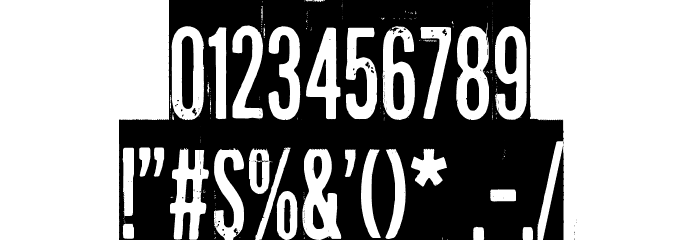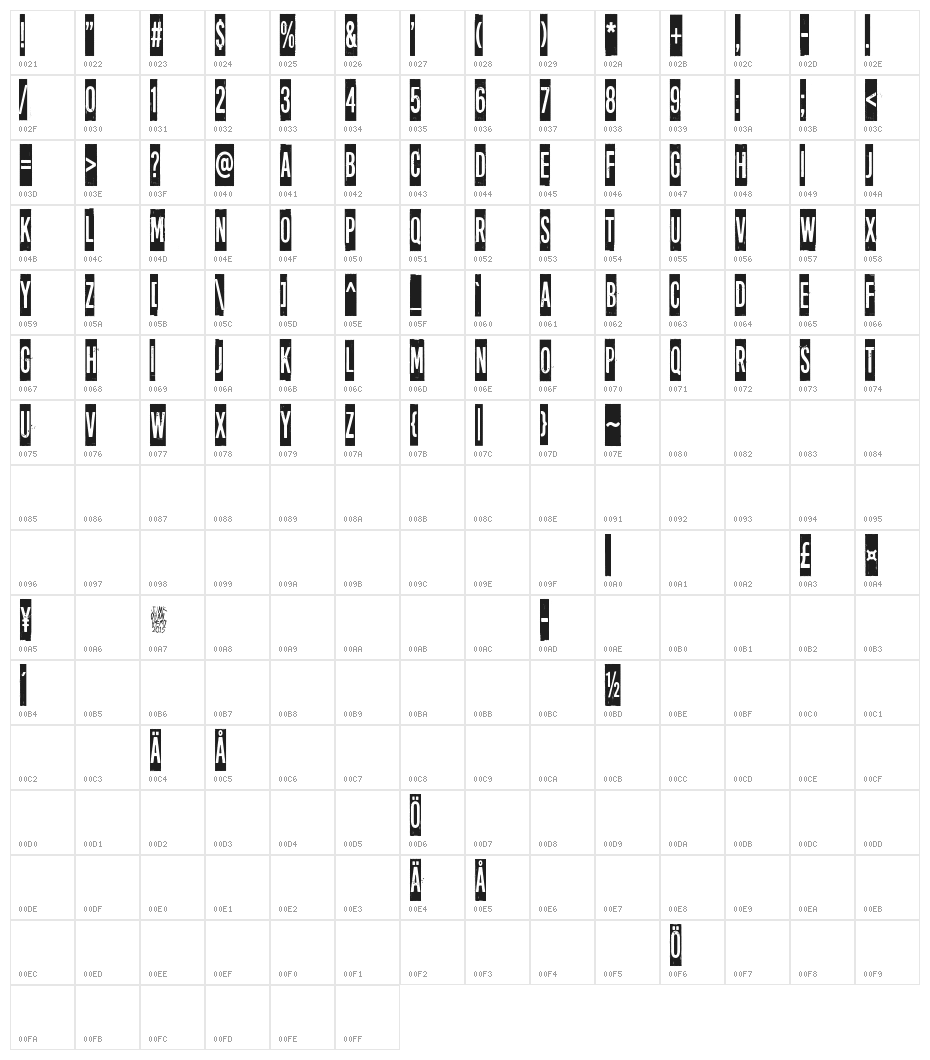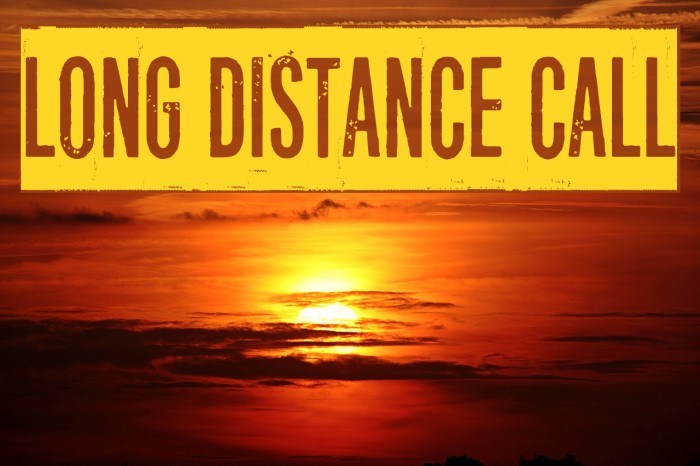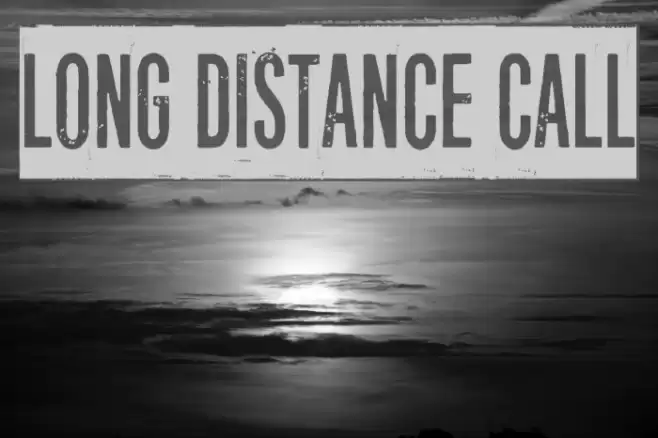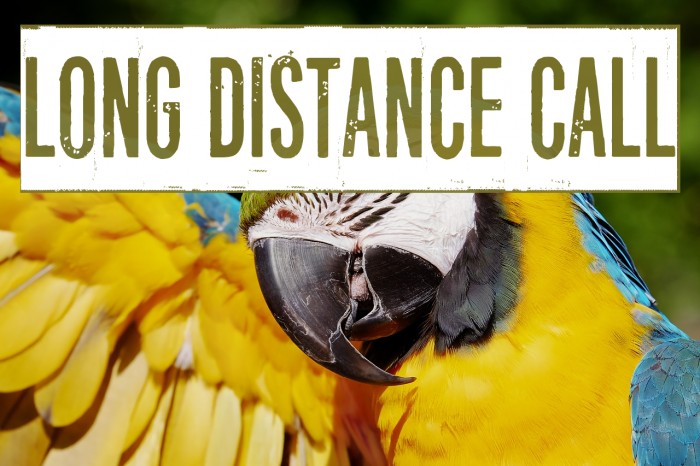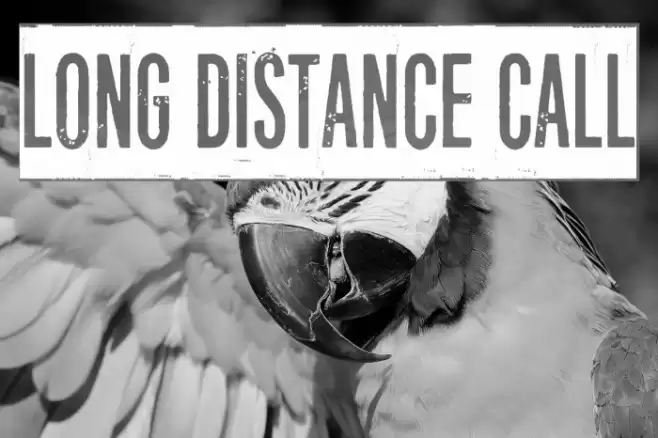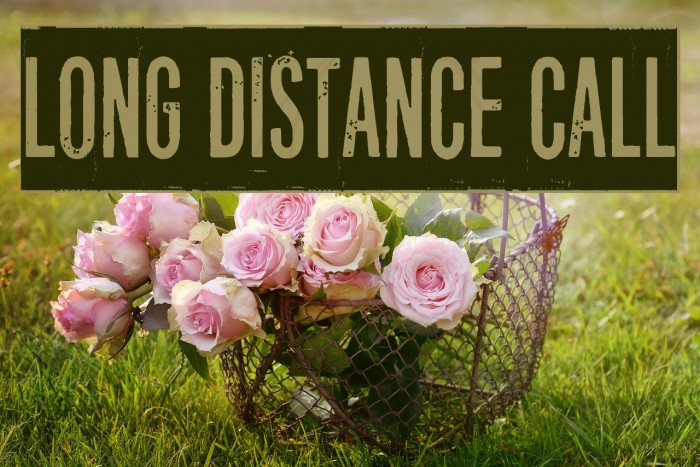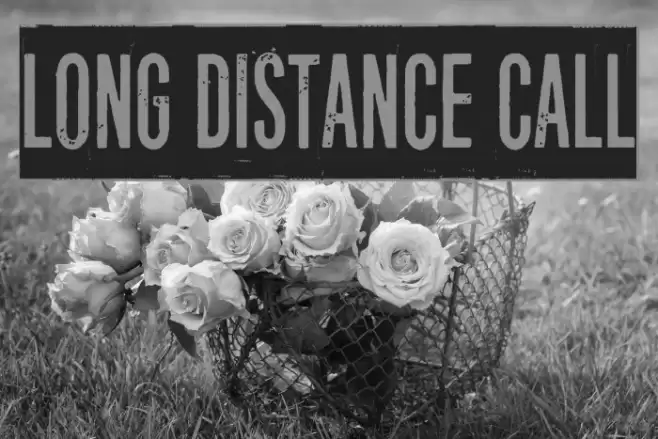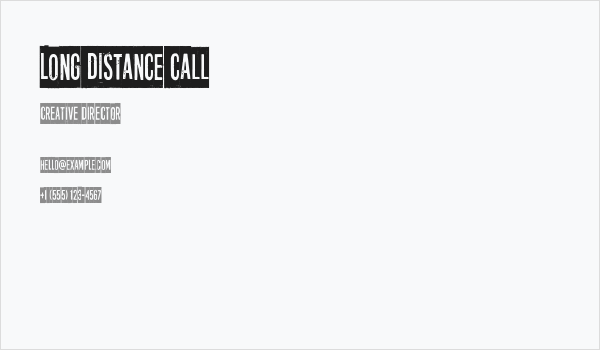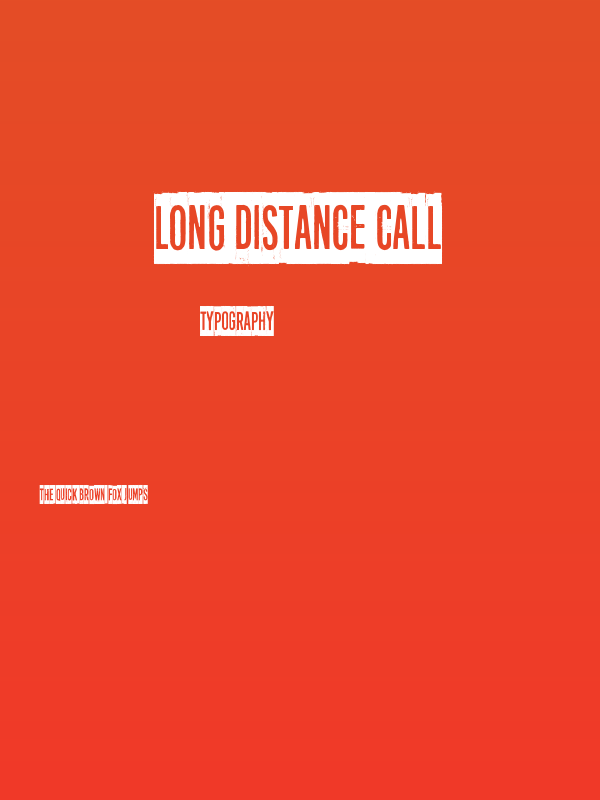
Long distance call Font
Long distance call Description
This font features a bold, distressed style with a vintage, grunge aesthetic. The characters are tall and narrow, giving an elongated appearance that is both striking and impactful. The texture of the font suggests a worn, weathered look, reminiscent of old posters or signage. Each letter has a unique, slightly irregular texture, adding to the overall distressed feel. The uppercase and lowercase letters maintain a consistent style, while the numerals and special characters complement the alphabet with similar ruggedness. This font is ideal for projects that aim to convey a sense of nostalgia or raw, edgy energy.
| Proposed Projects | Ideal for posters, album covers, branding for edgy or vintage-themed products, and any design needing a bold, distressed look. |